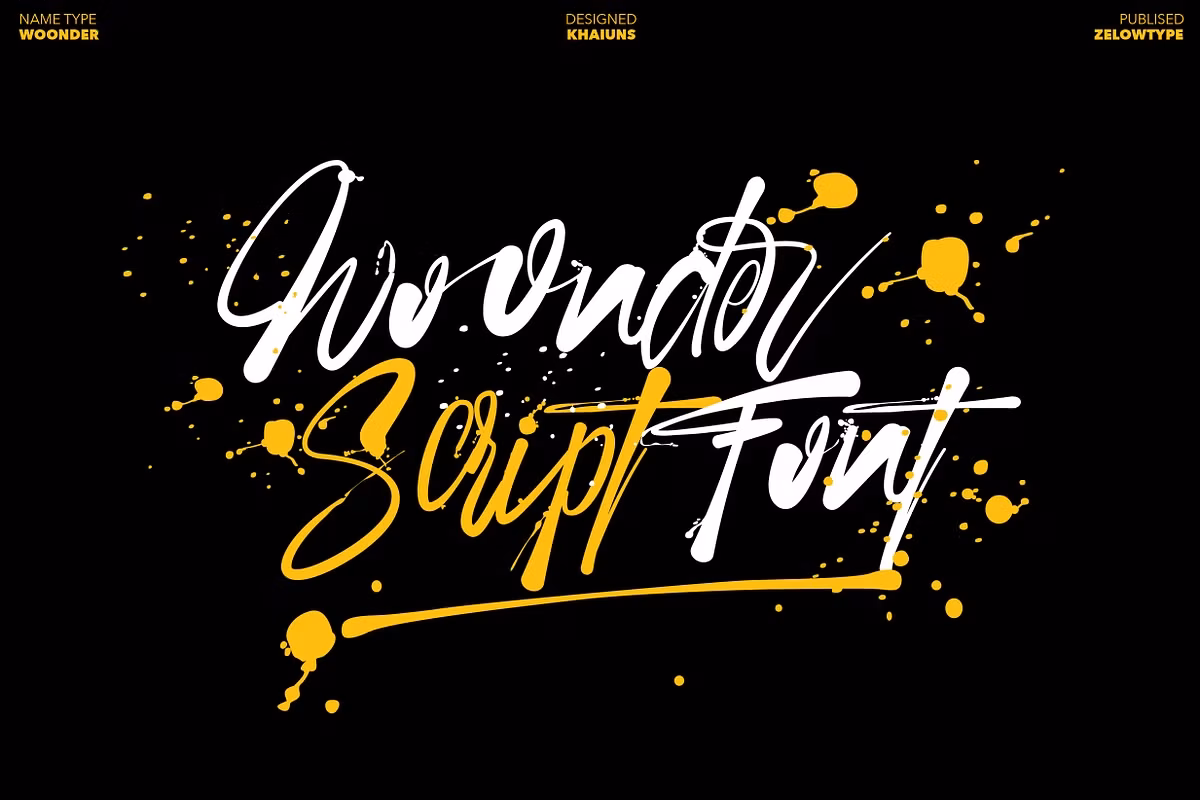
Woonder - Script Font Free Download
Woonder - Script Font Free Download is a beautifully flowing handwritten script font that adds a personal and elegant touch to any design. With its smooth strokes and natural feel, Woonder is perfect for wedding invitations, logos, social media posts, and branding that calls for a touch of romance and sophistication.